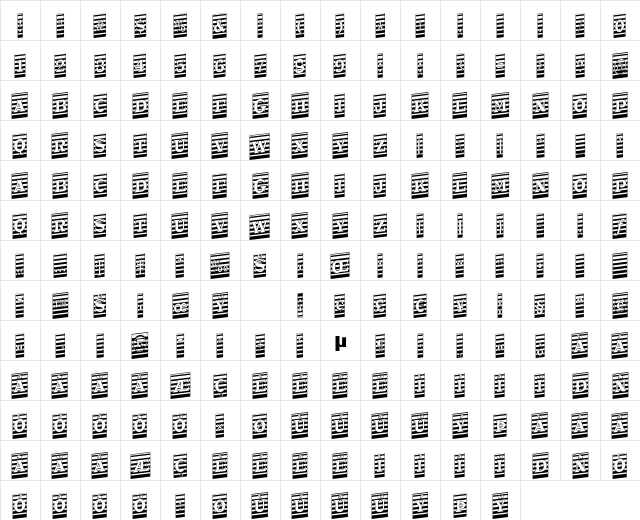
Complete a_TrianglerCmMrUp Regular glyph index. Displaying only characters natively supported by a_TrianglerCmMrUp Regular font.
a_TrianglerCmMrUp is a composed and adaptable typeface that performs quietly and consistently across a wide range of design contexts.